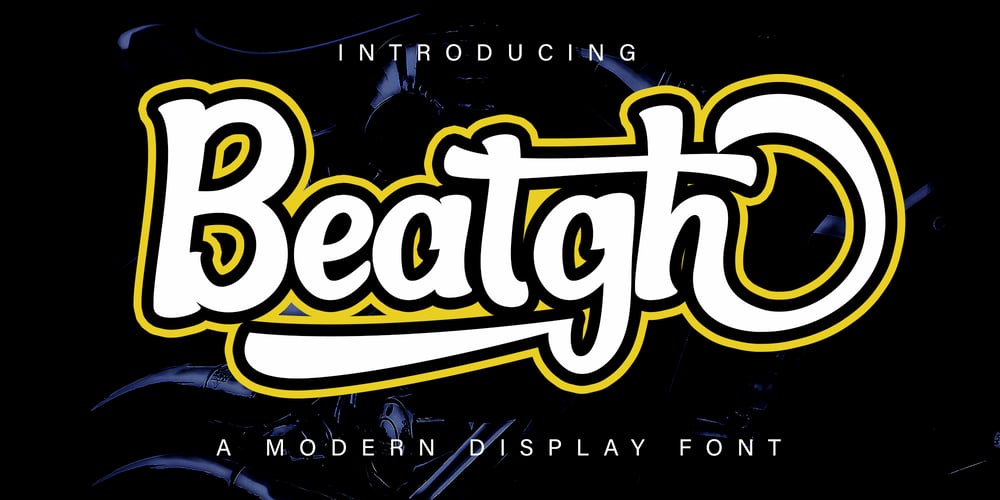
Beatgh
Beatgh font
Beatgh Font Family was designed by Irfan Mahmudin and published by Skiiller Studio. Beatgh contains 1 styles and family package options. Beatgh is a modern, cool, beautiful, and very suitable display font to support your presentation and support in marketing your products and business